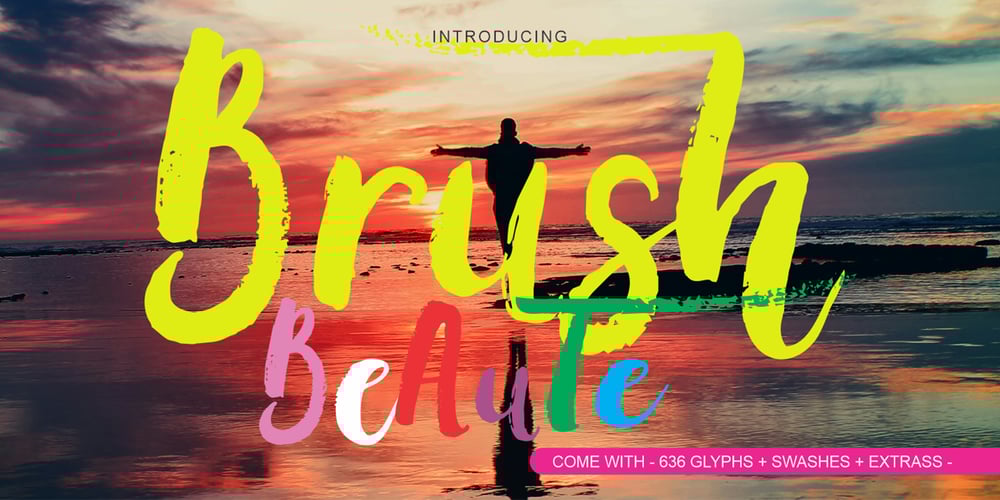
Brush Beaute Font Family was designed by Yusliana M Isa and published by Gian Studio. Brush Beaute contains 1 styles and family package options. Brush Beaute is casual hand brush script so it has this nice texture and flow. Brush Beaute has lots of alternates to make it look more like real handwriting; suitable for design projects ; logo, branding, poster, quotes, gorgeous wedding invitations, beautiful stationary art, eye-catching social media posts, and cute greeting cards and any other designs. It is unique, so natural and catchyWhat’s include :Brush Beaute OTBrush Beaute TTBrush Beaute Swashhanks for checking it out, and feel free to drop me a message if you had any queries.gianstudio12@gmail.com